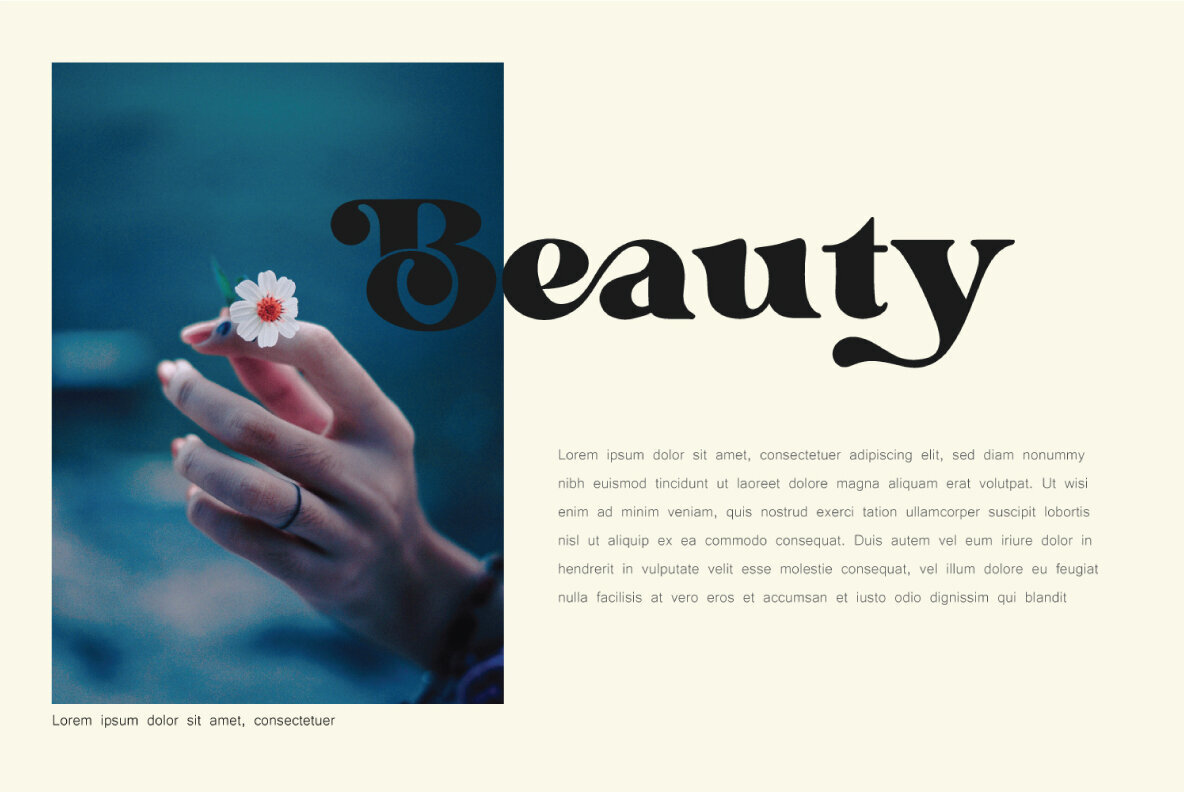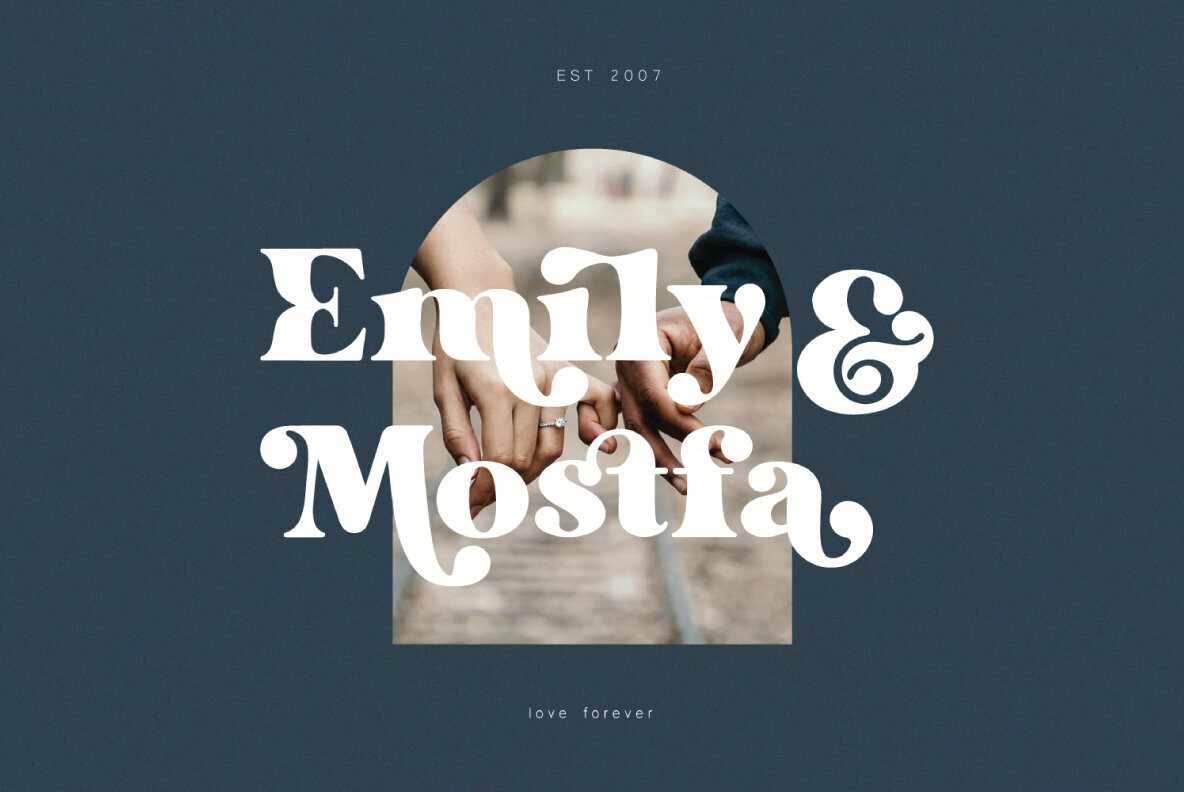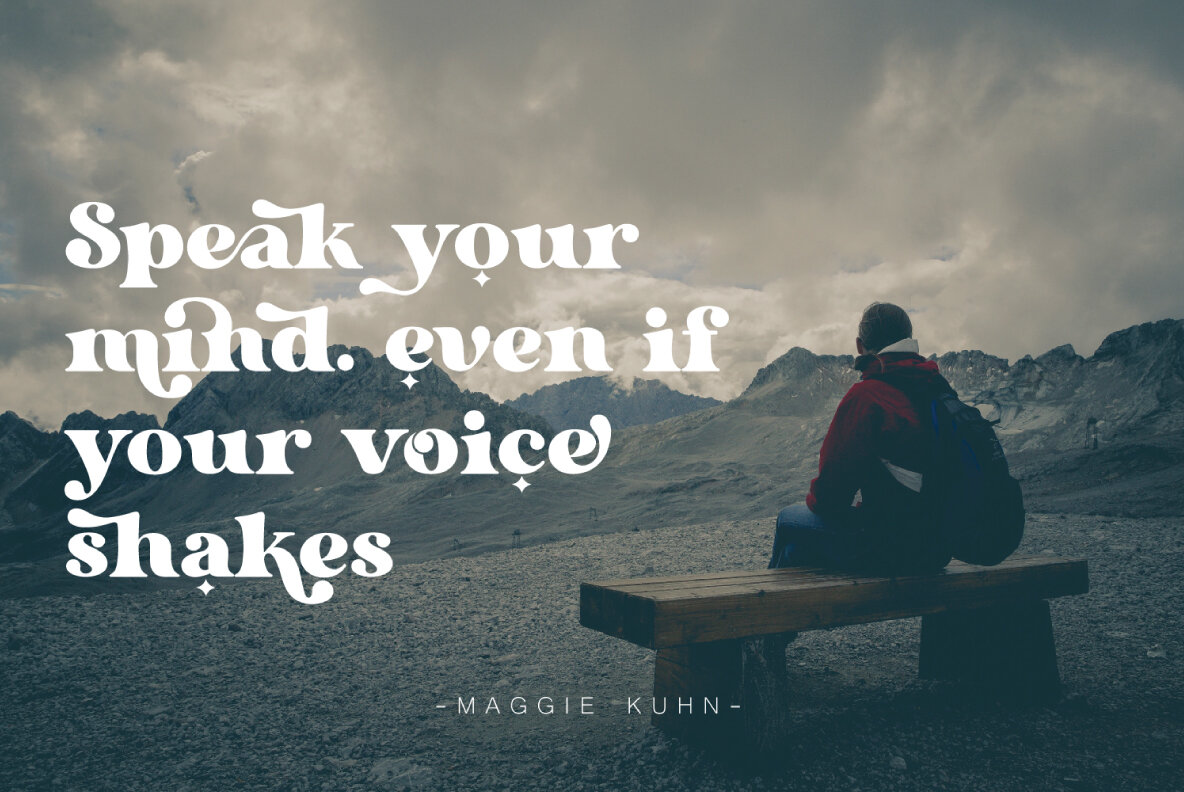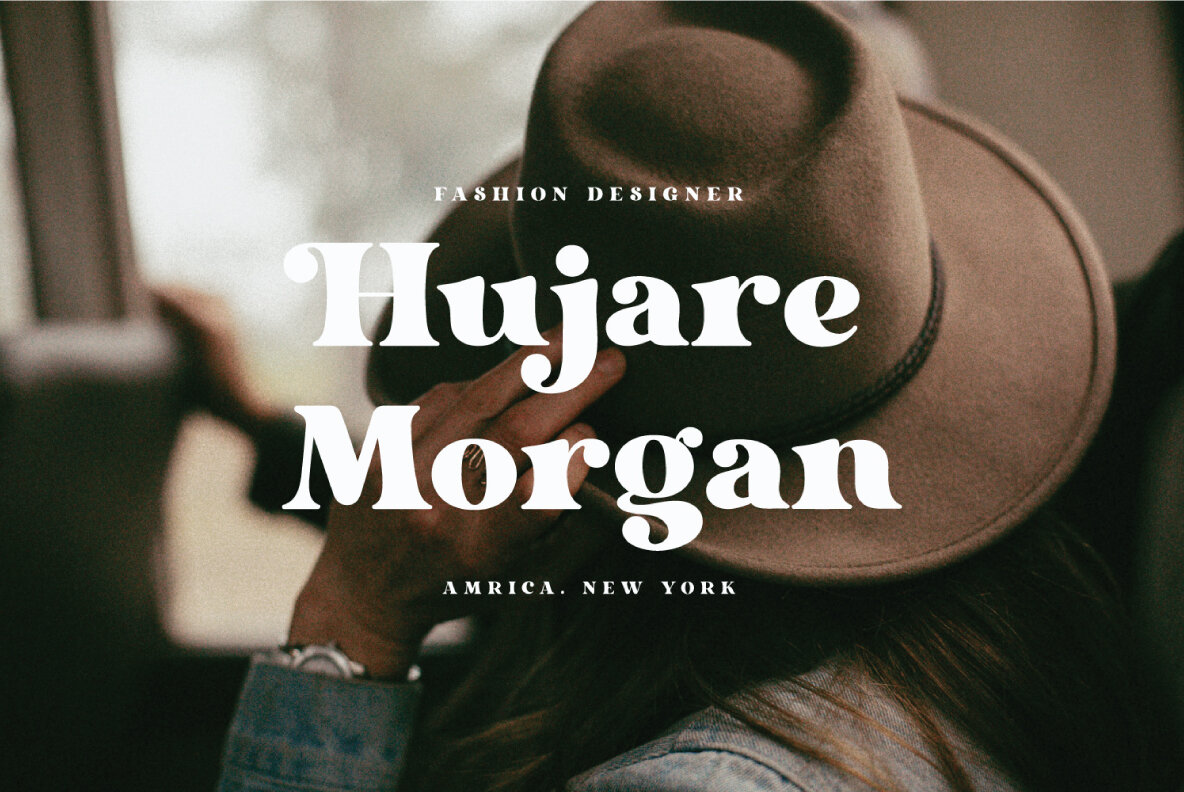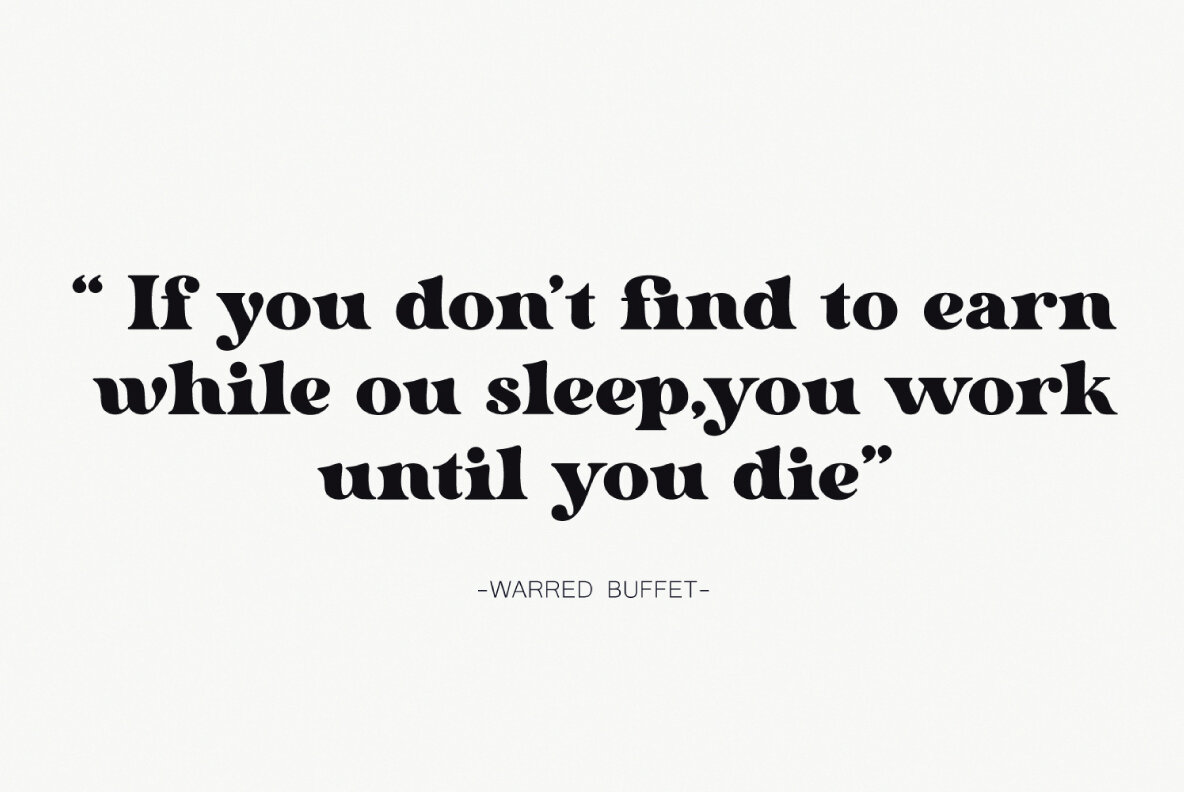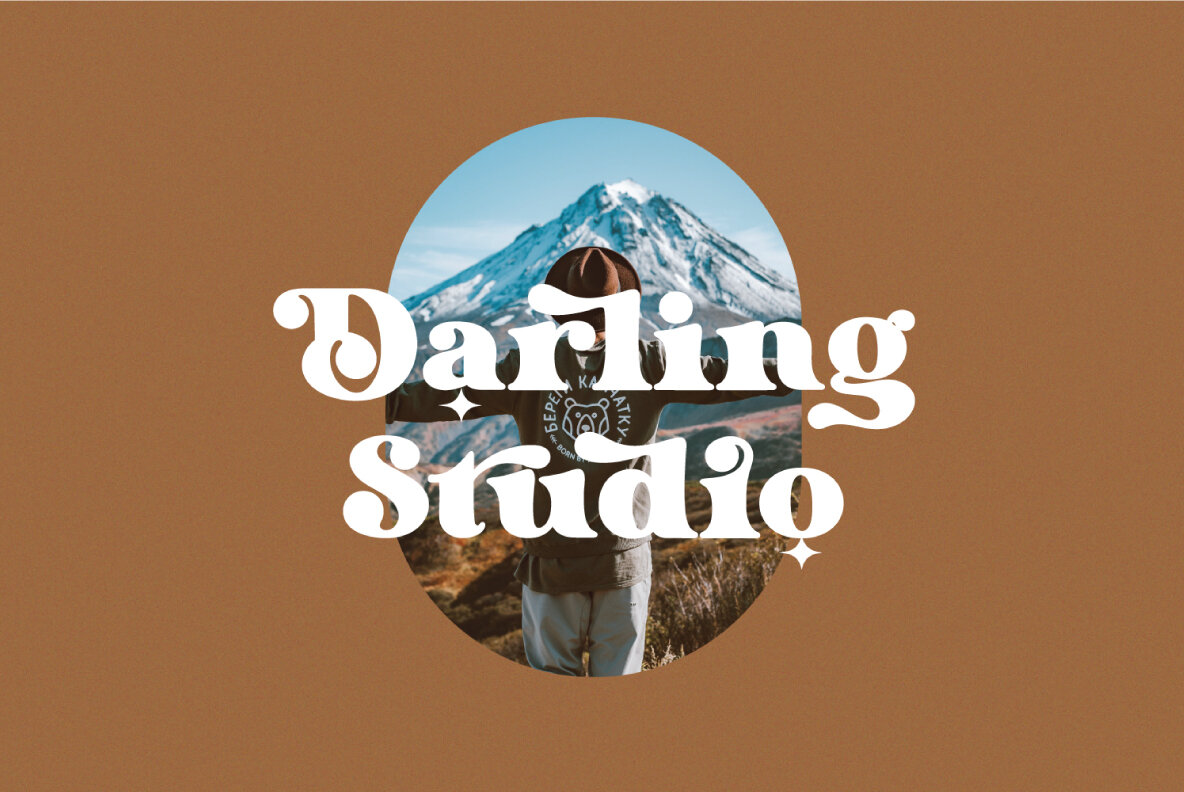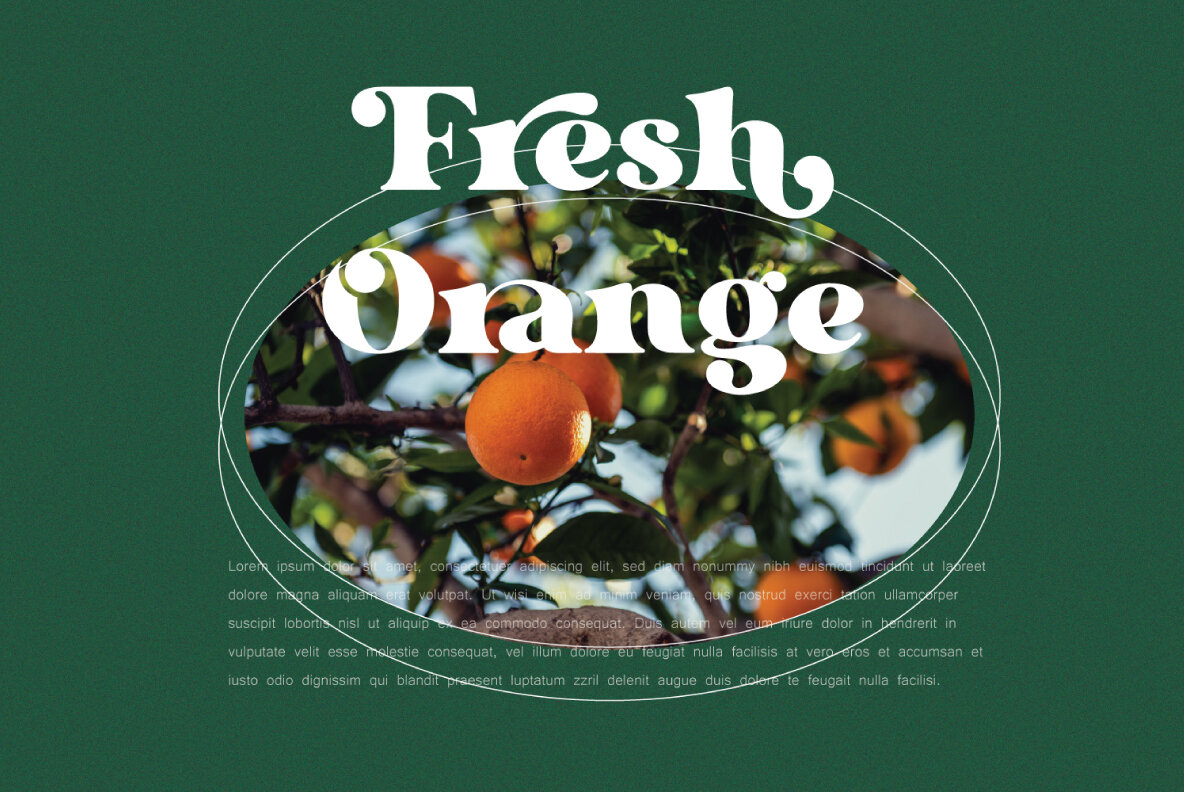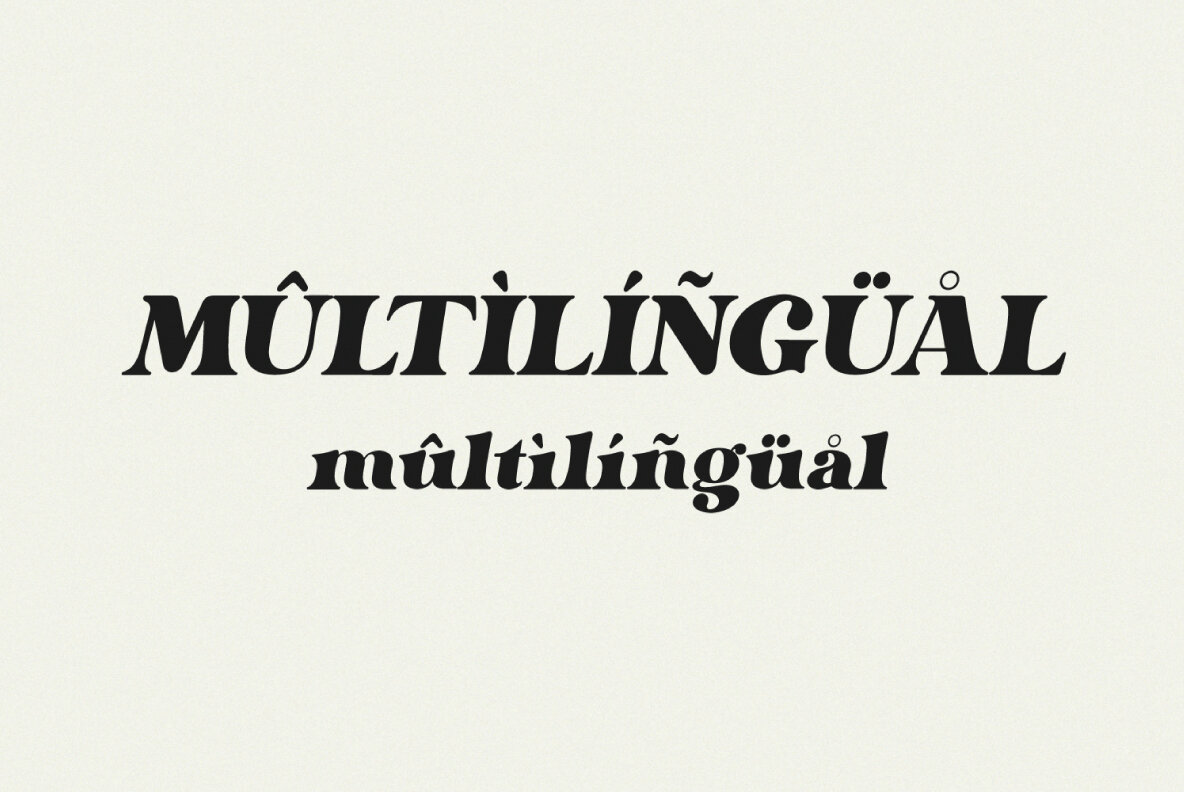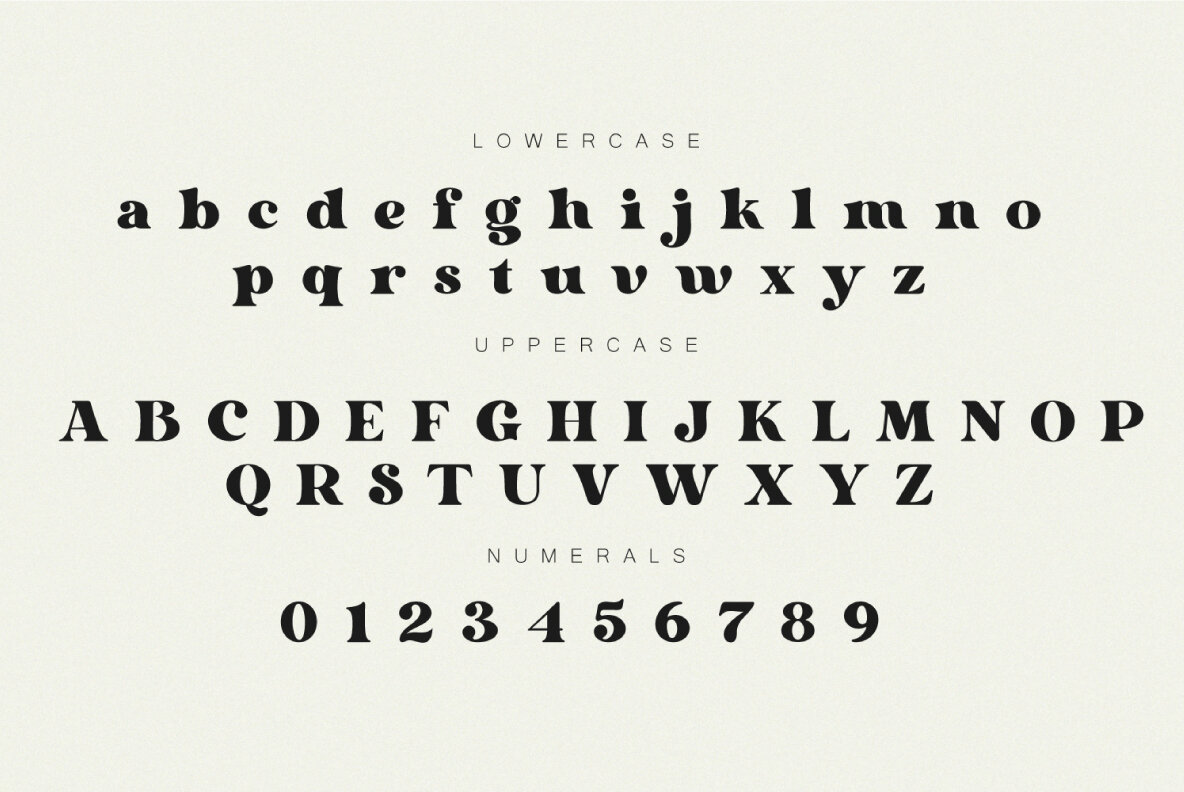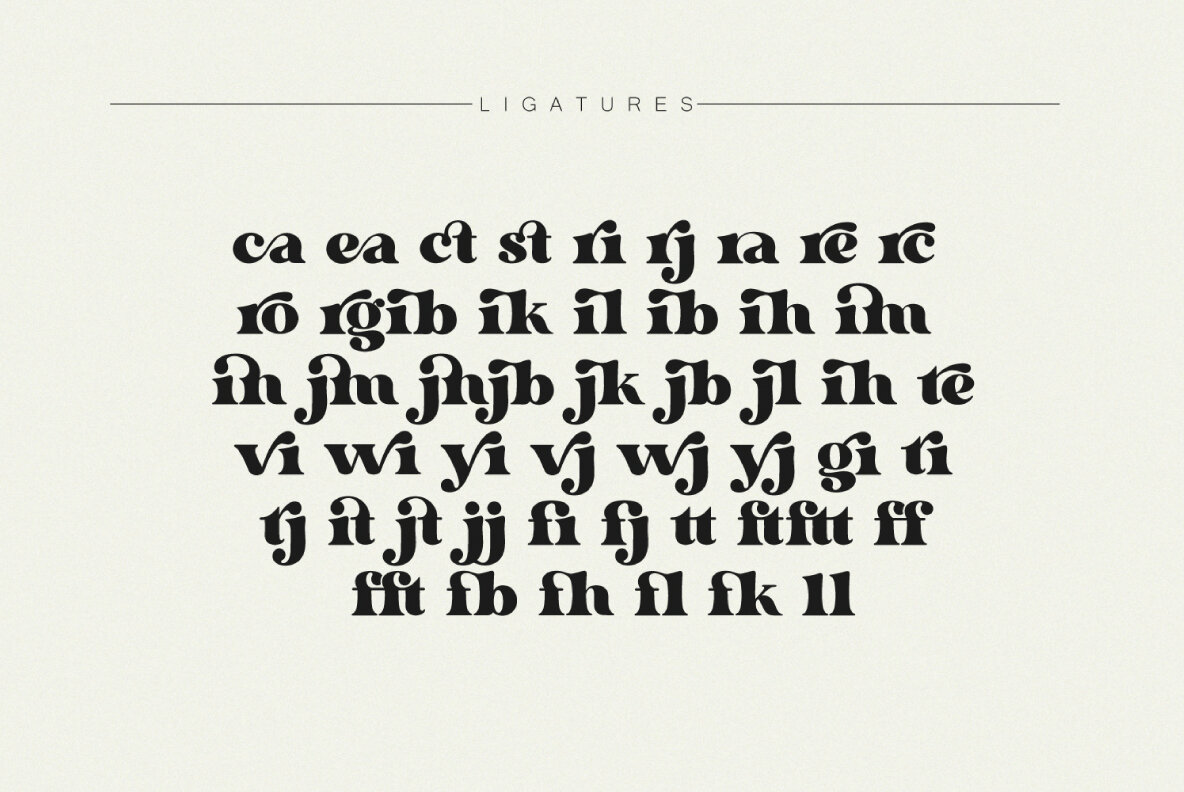
Dorige Font
Dorige Regular
Dorige Italic
Dorige Bold
Dorige Bold Italic
Dorige is a modern retro serif typeface for branding, logo design and retro designs, This font comes with joining ligatures that give it a fancy and unique style.
Dorige typeface comes with regular, italic, bold and bold italic font styles. Uppercase & lowercase letters, numbers, punctuation, ligatures, alternates Multilingual support.